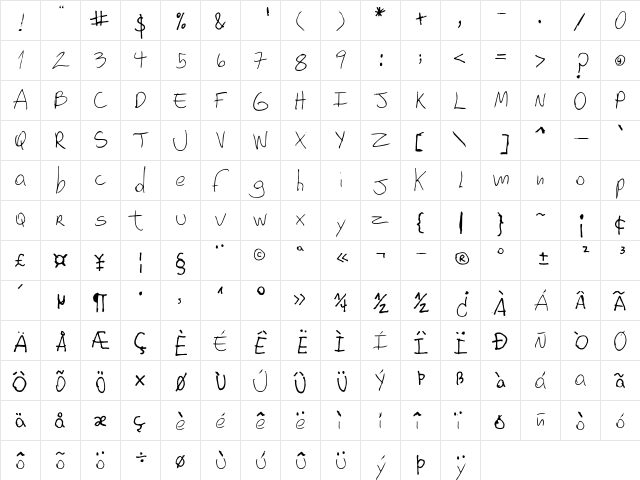
Design Context for Gabo4 Typeface
Gabo4 takes a measured approach to typography — its balanced proportions and neutral character make it a reliable workhorse for both digital and print work.
Pro Tip: Use Gabo4 in both headline and body roles to test its range before committing to a single application.